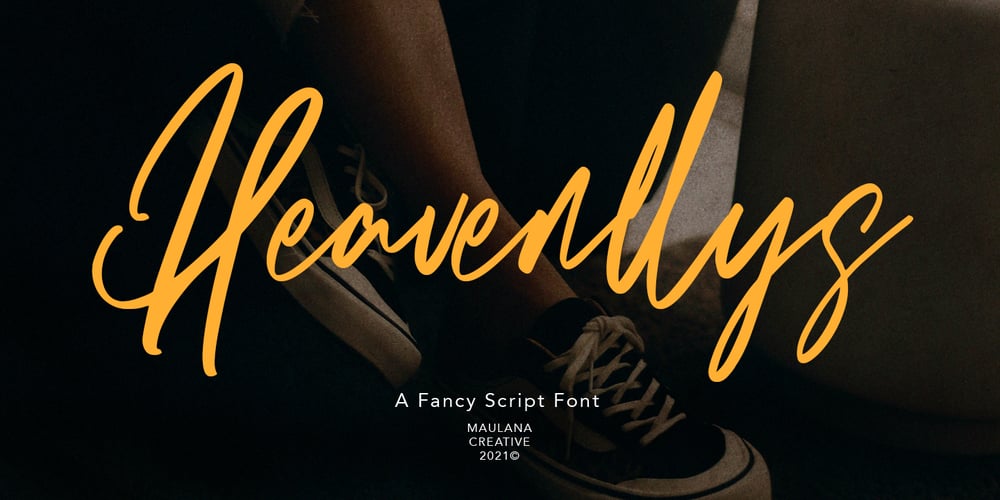
Heavenllys
Heavenllys font
Heavenllys Font Family was designed by Gilang Maulana and published by Maulana Creative. Heavenllys contains 1 styles and family package options. Heavenllys is a fancy script font With clean high contrast stroke, super slanted and fun character. It has Opentype features of ligatures, To give you an extra creative work. Heavenllys script script font support multilingual more than 100+ language. This font is good for logo design, Social media, Movie Titles, Books Titles, a short text even a long text letter and good for your secondary text font with sans or serif. Make a stunning work with Heavenllys font. Cheers, MaulanaCreative